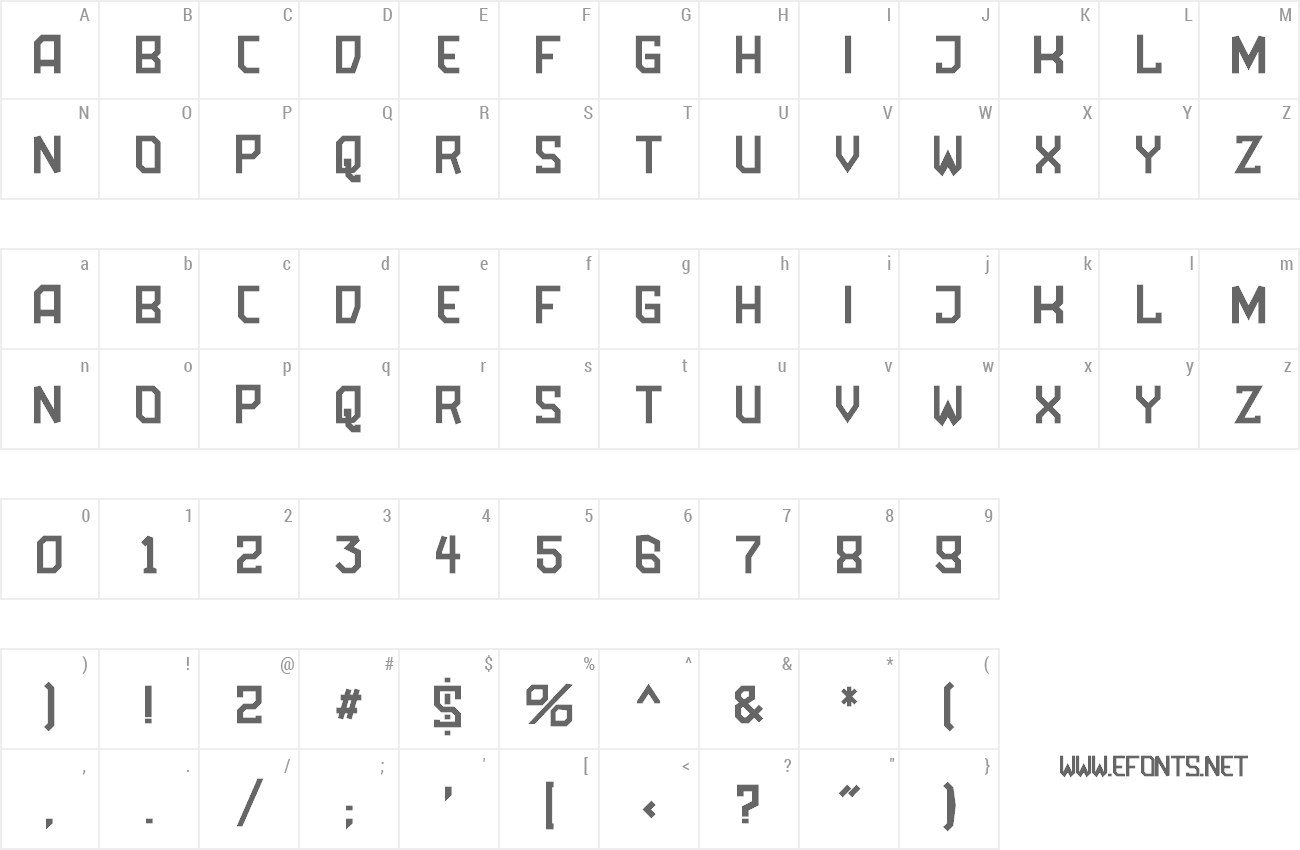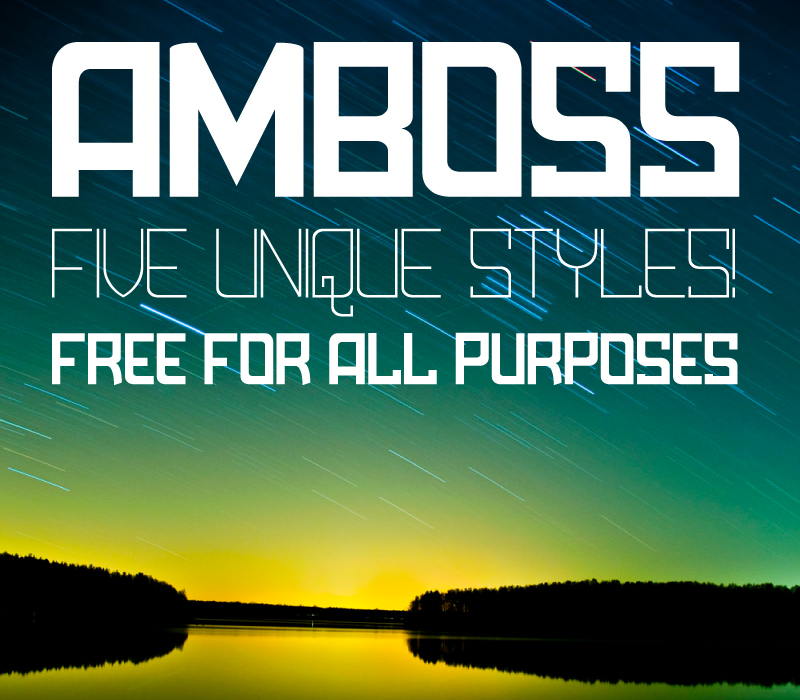
Amboss (German for anvil) is the name of this font family. Yes, you heard right: This font contains a package of five different fontstyles: • Amboss Display (fat & heavy for headlines) • Amboss Display Rounded (also fat, but rounded) • Amboss Display Outline • Amboss ExtraLight (very thin and fragile) • Amboss ExtraLight Rounded (quite elegant and fragile) Do you need some extra letters ("glyphs")? Do you miss a feature? Do you like my work? Let me know: info@funken-schlag.de (in English, German or French please.) UPDATE: This is an updated Version with some improvements. Be sure to download the actual (vers. 1.1) file. |